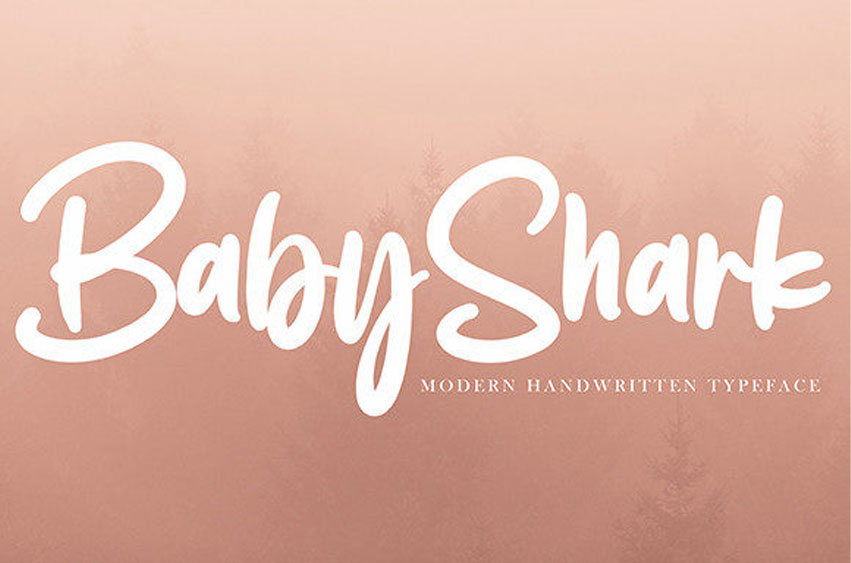
Baby Shark Font is a bold and beautifully flowing handwritten font perfect for quotes, logos, blog headers, posters, branding, letters, invitations, stationery, etc.